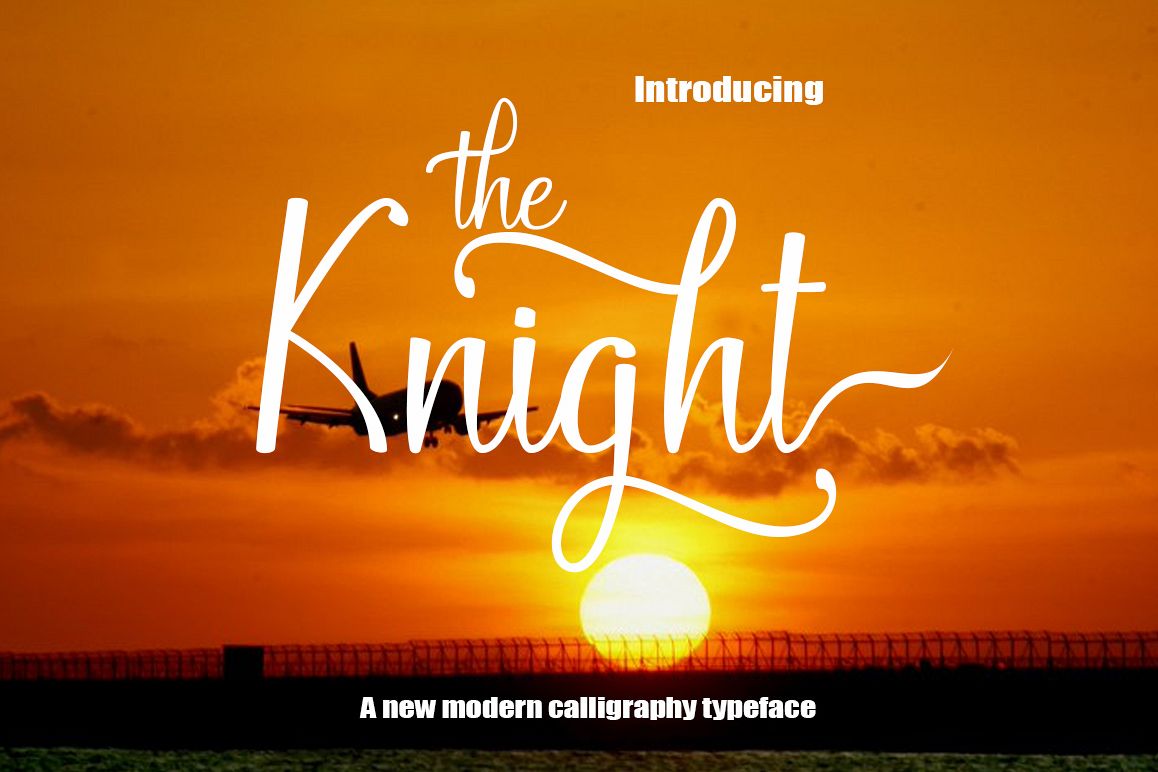
The Knight
The Knight Modern Calligraphy. This font was designed by handwriting, and it has a modern and unique forms of calligraphy, the writing style is very natural.
The Features of this fonts is;
* Standart ligatures
* Stylistic Alternates
* Contextual Alternates
* Stylistic sets